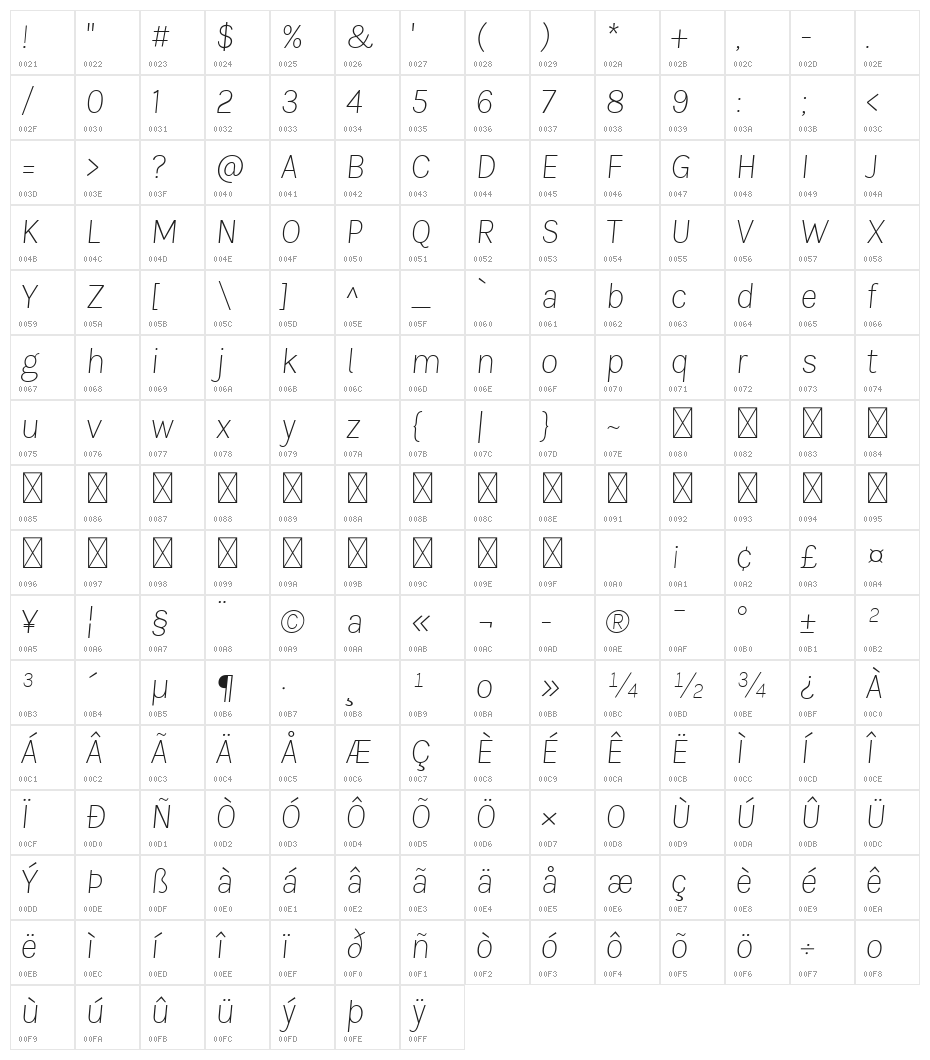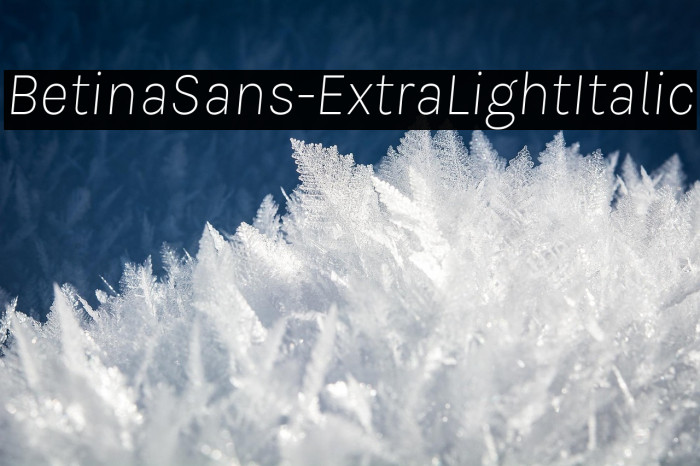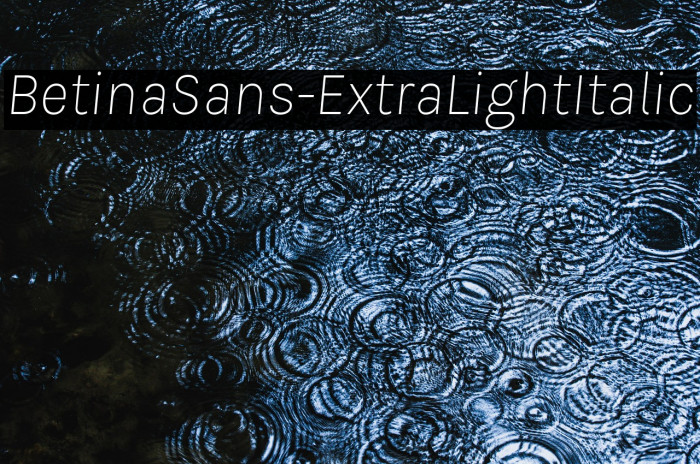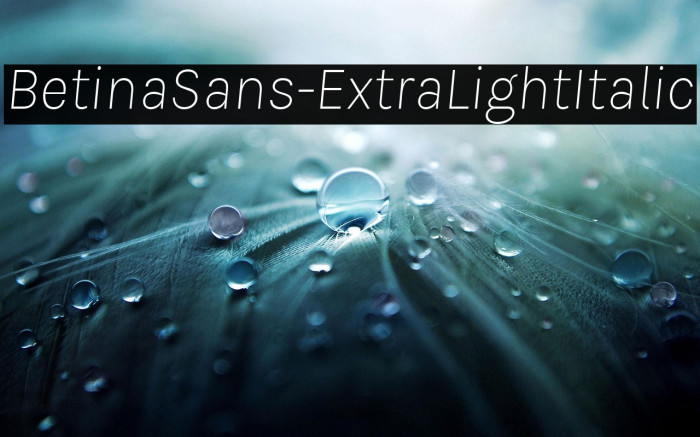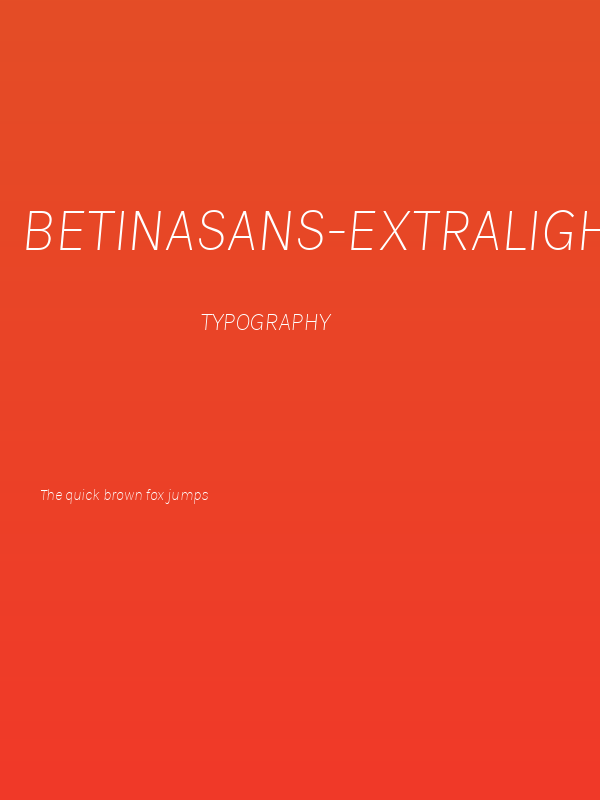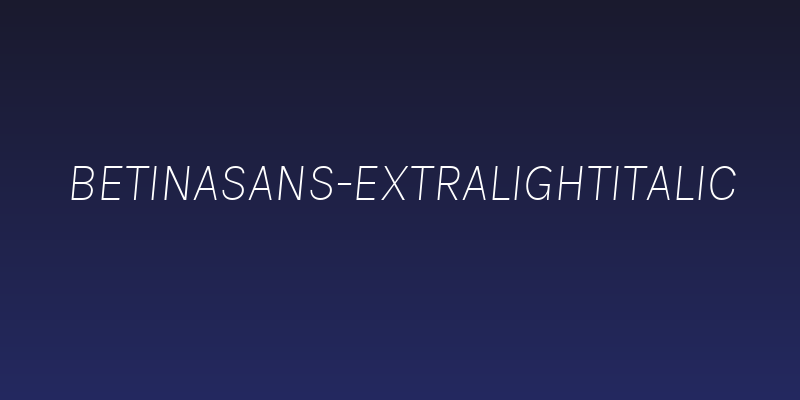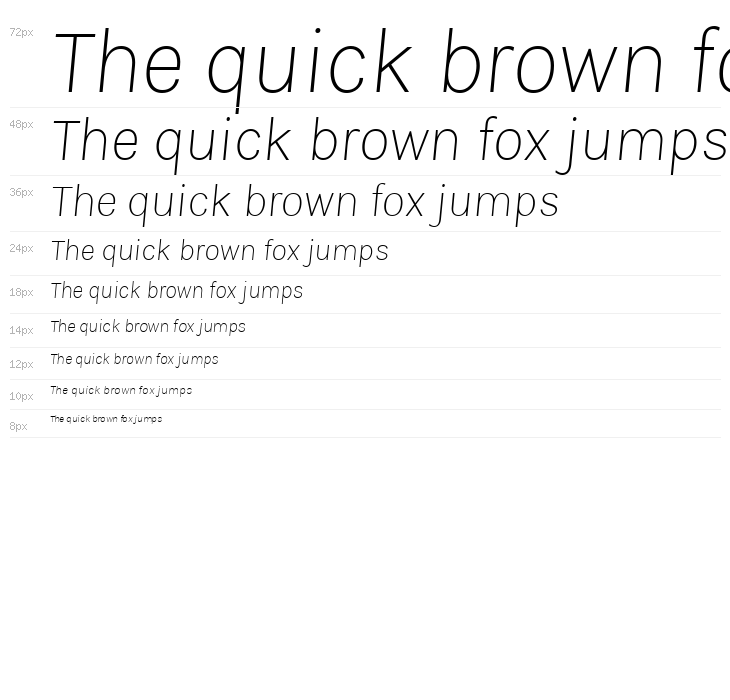
BetinaSans-ExtraLightItalic Font
BetinaSans-ExtraLightItalic Description
This typeface features a sleek and modern design with a clean, minimalist aesthetic. The characters are slightly elongated, giving them an elegant and sophisticated appearance. The strokes are thin and consistent, contributing to a light and airy feel. The italic style adds a subtle slant to the characters, enhancing the dynamic and fluid nature of the font. The uppercase and lowercase letters maintain a uniform height, creating a harmonious balance. The numerals and special characters are crafted with the same attention to detail, ensuring readability and versatility across various applications.
| Proposed Projects | Ideal for branding, editorial design, fashion magazines, and modern web design projects. |